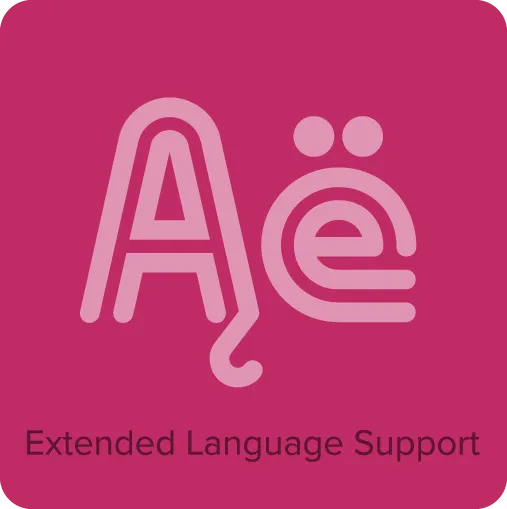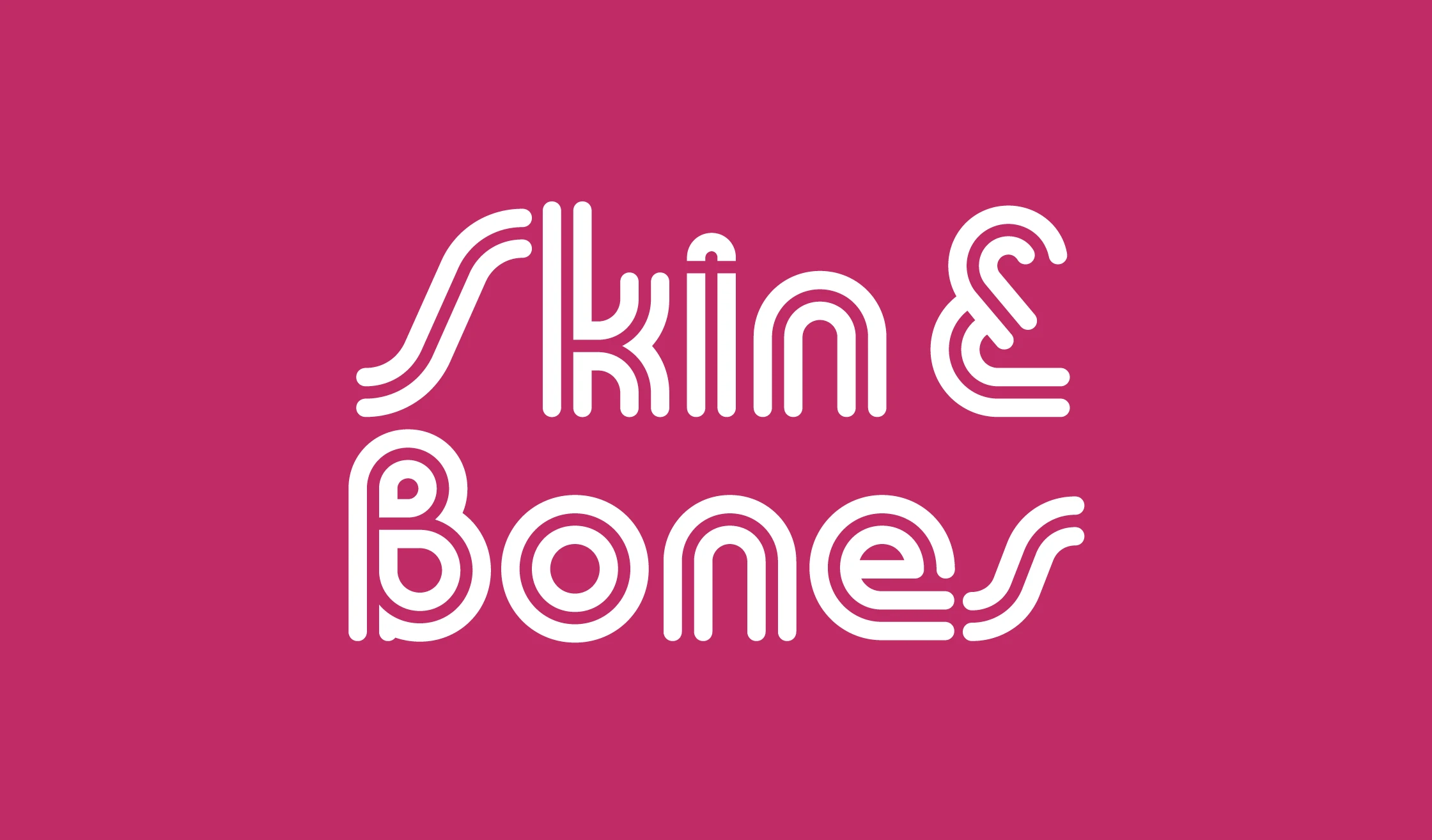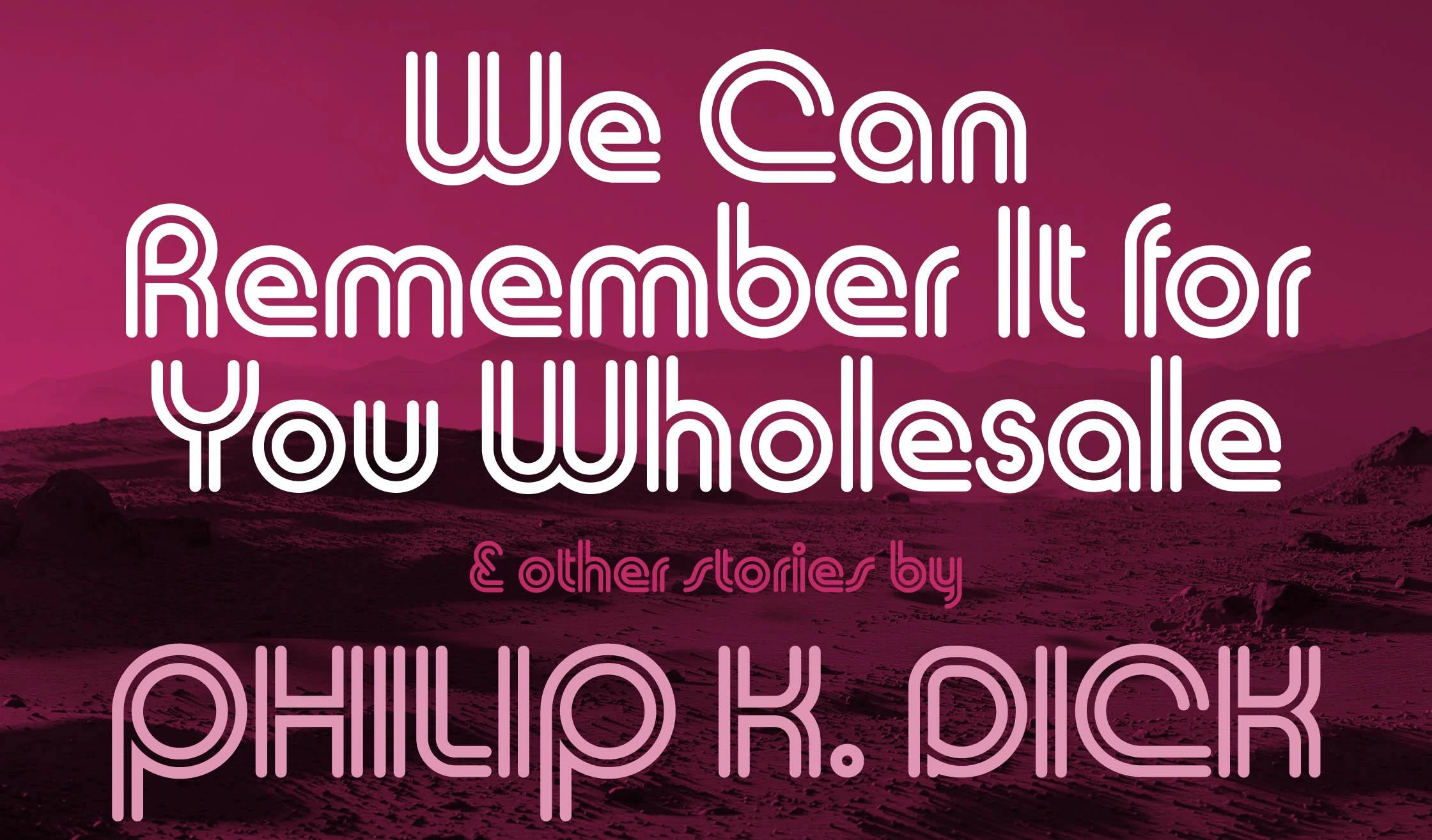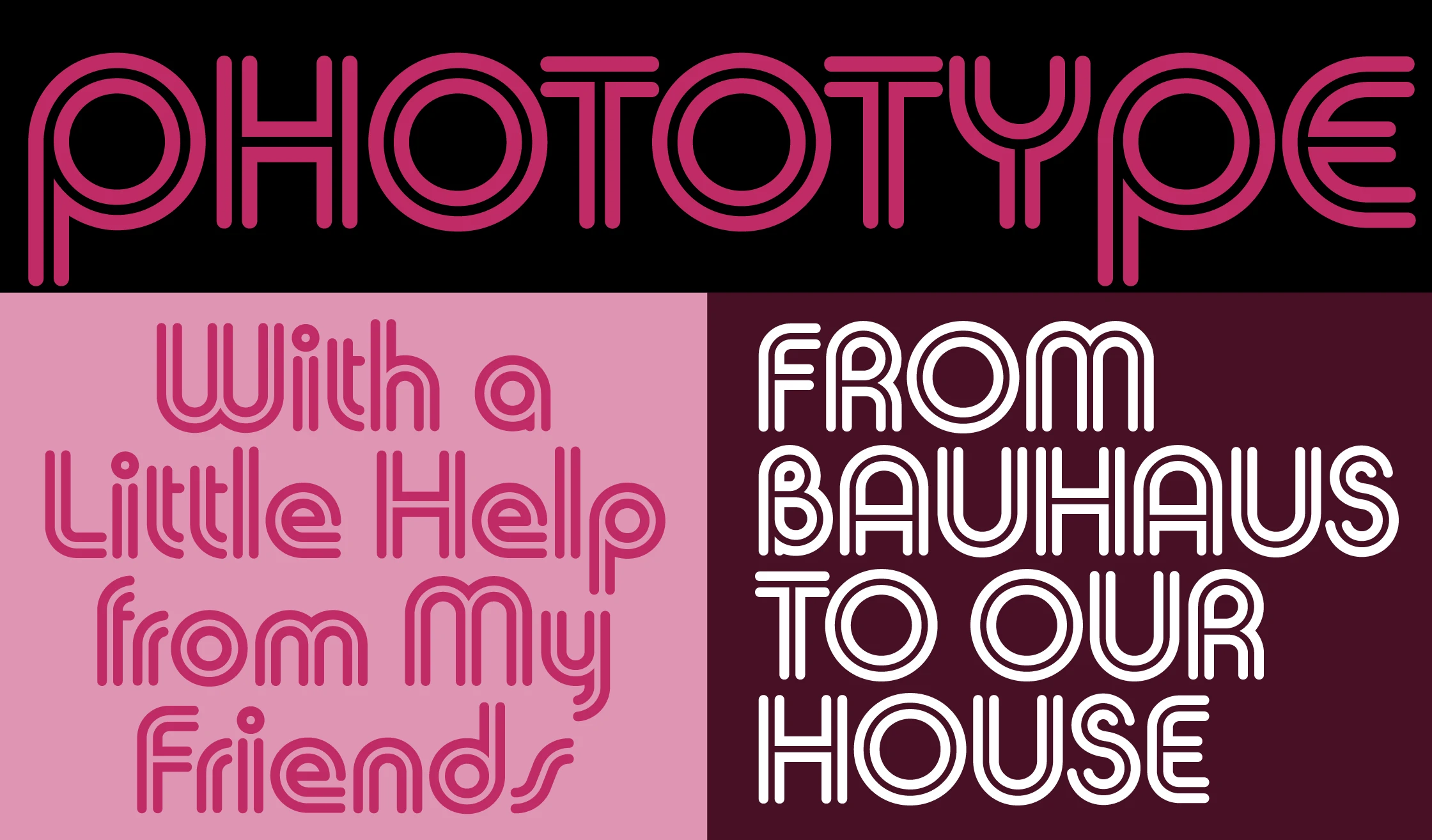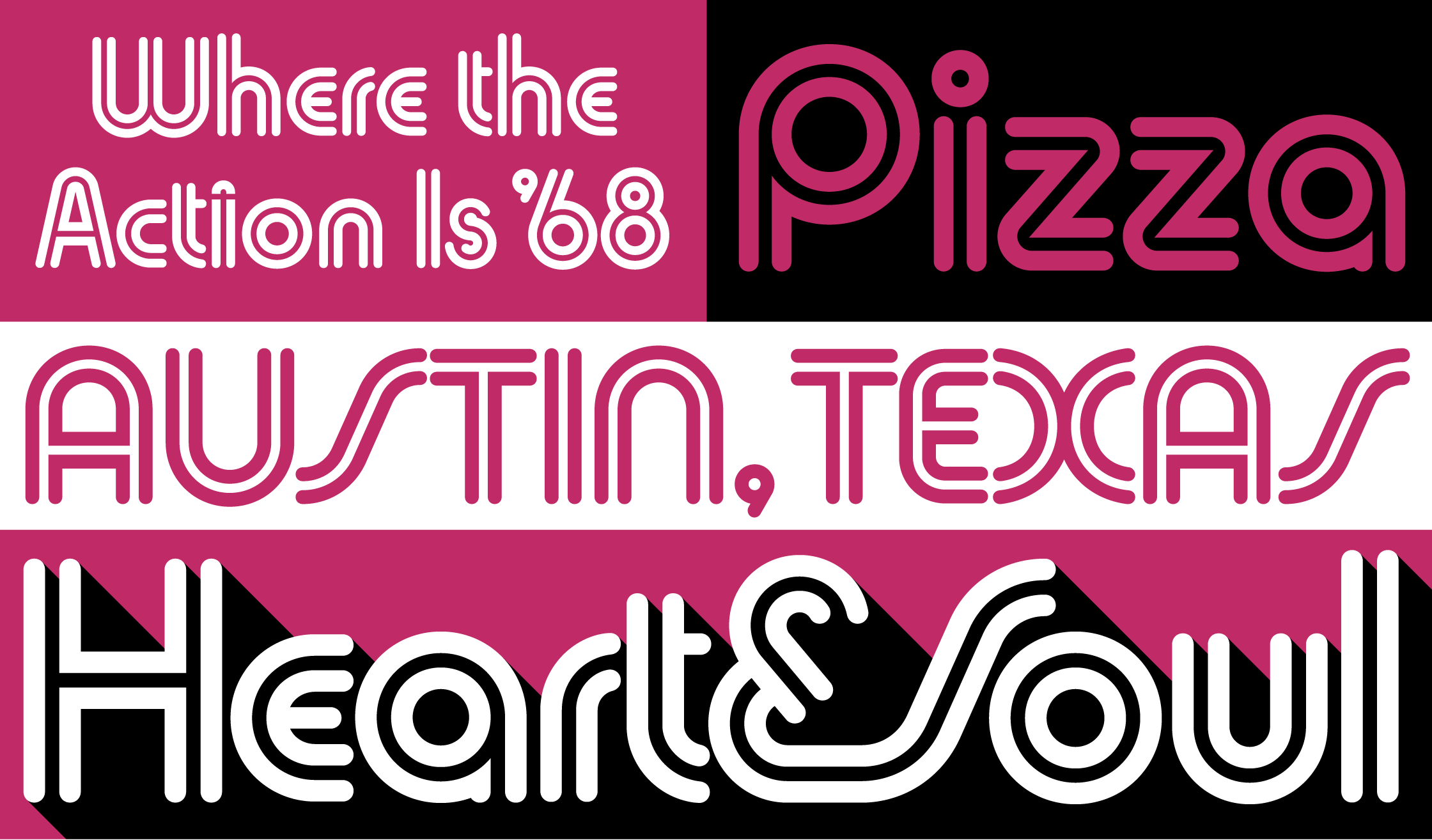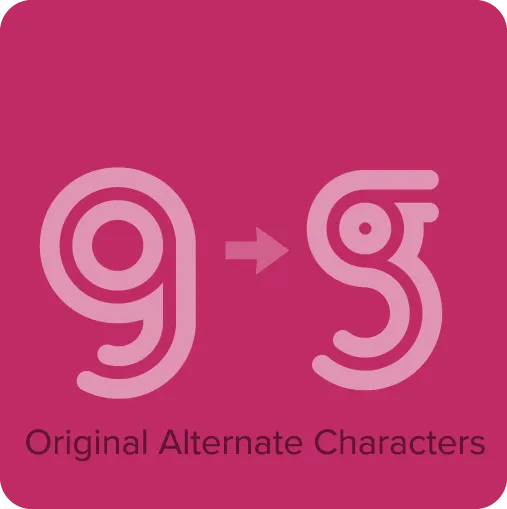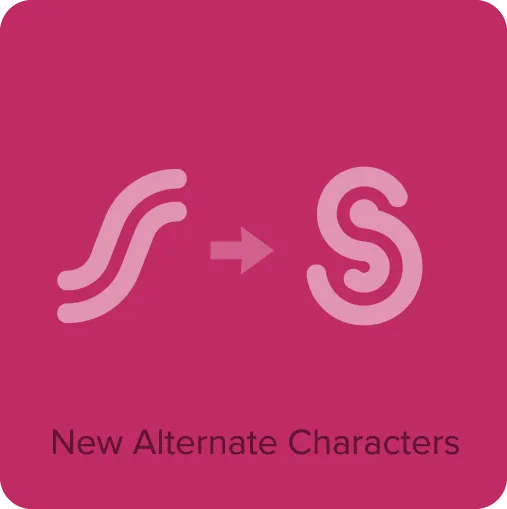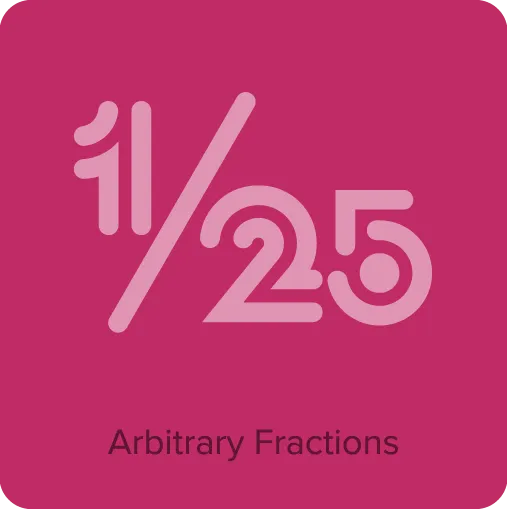
Skin & Bones was originally designed by Douglas F. Jones for the Visual Graphics Corporation, which made the Photo Typositor, a headline-setting machine. Jones was inspired by Herbert Bayer’s geometric alphabets as part of the Bauhaus movement and thought that an inline treatment would be visually appealing. In 2017, Doug gave Mark Simonson permission to create an official version of Skin & Bones, resulting in a faithful digitization of Doug’s 1972 design but with a larger character set.
- Faithful recreation of Doug Jones’ 1972 design in a fully modern format.
- Original and newly-designed alternate characters.*
- Language support for Latin-based Western, Central, and Eastern European languages.*
- Automatic arbitrary fractions.*
- Small figures (superscript, subscript).*